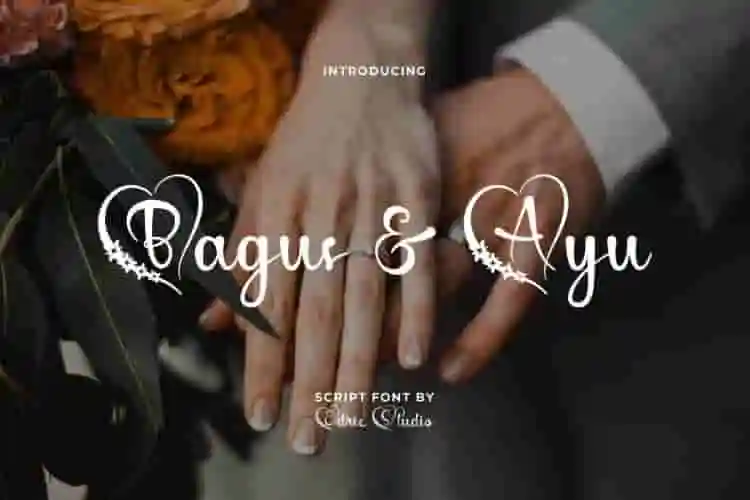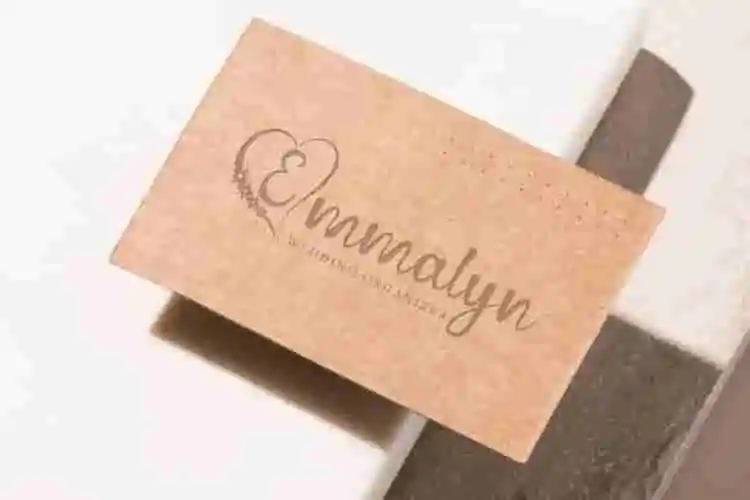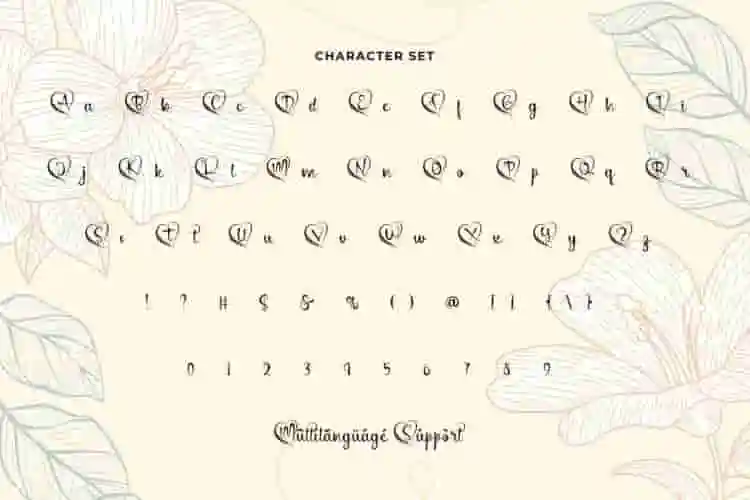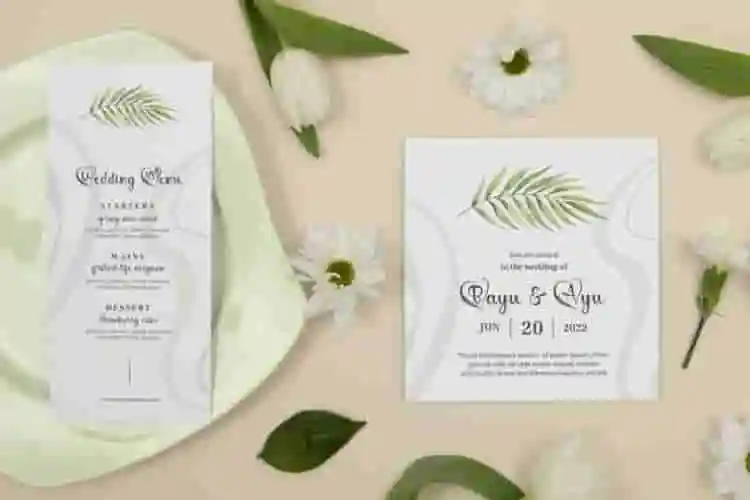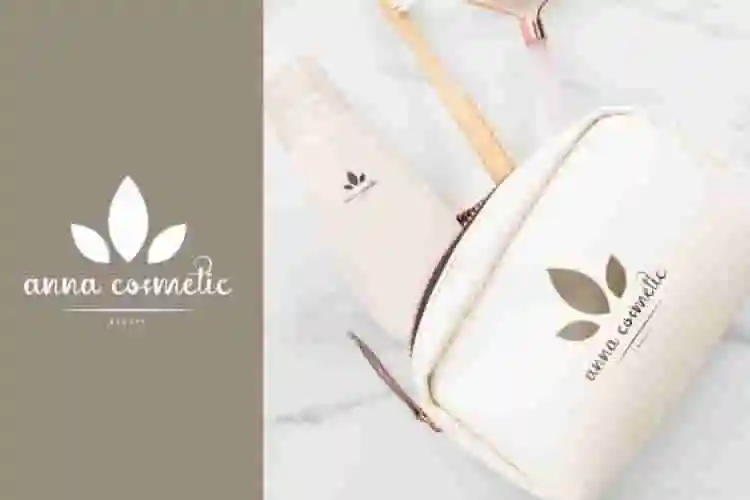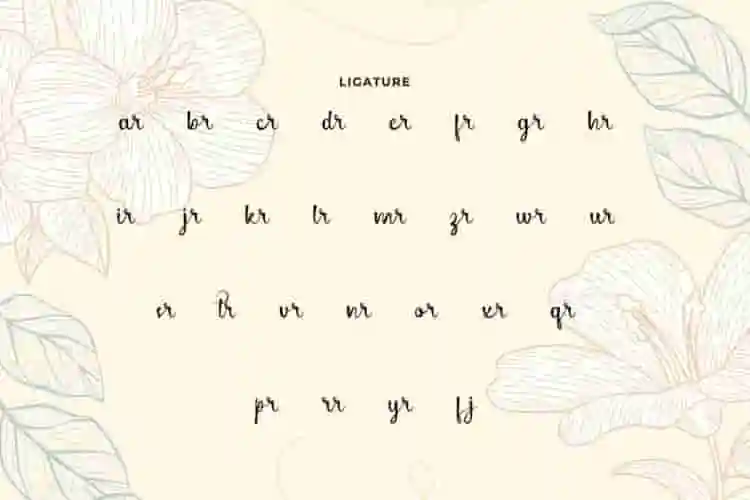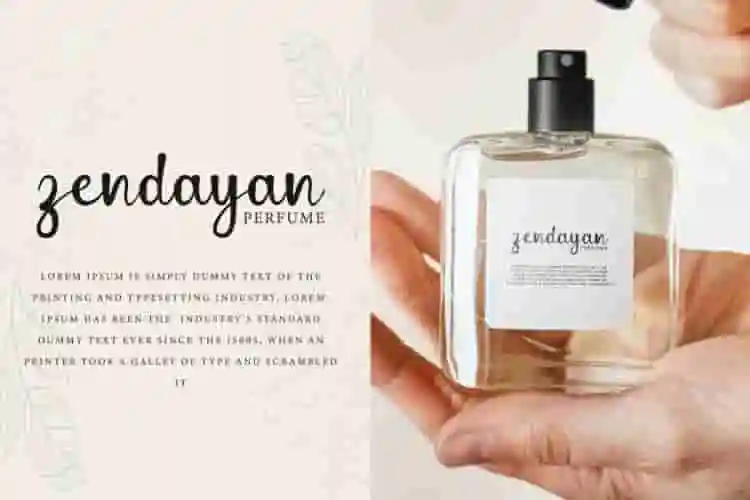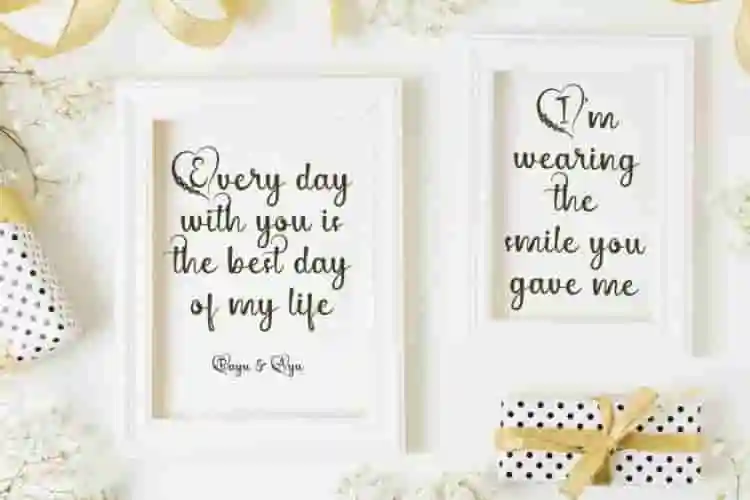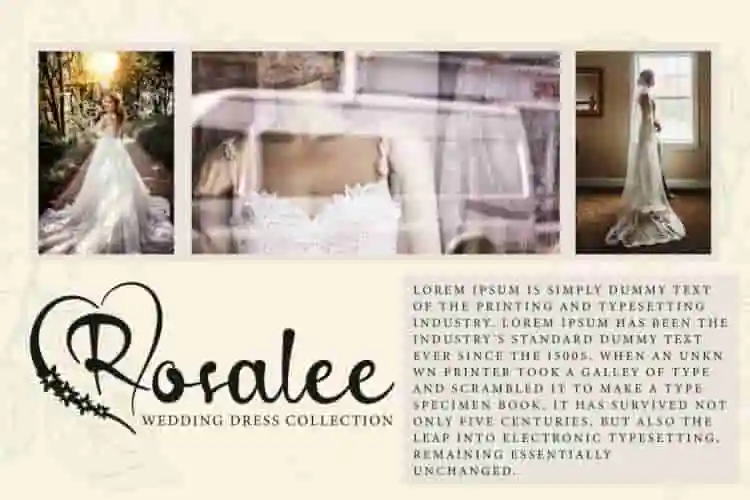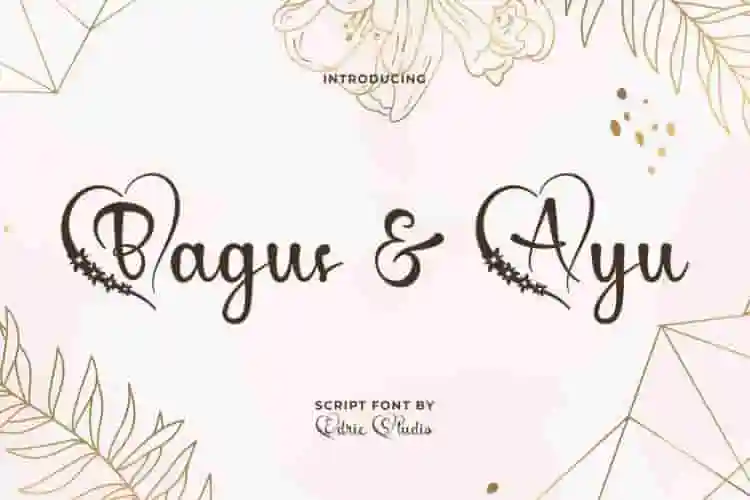
Bagus & Ayu Font is a beautiful script font with a touch of love created by EdricStudio. This font was created by raising the concept of heart in uppercase characters and is still easy to read making it suitable for any industry, such as boutique, cosmetic, event organizer, perfume brand, printing, publishing, restaurant, spa, and anything that requires an elegant script look.
Bagus & Ayu Font comes with a full set of Uppercase and Lowercase Basic Characters, Number, a large range of Punctuation and Symbol. It has a stunning characters set, perfectly managed with well spaced and kerning. Bagus & Ayu Font will be great for any projects (with extended license) including : brochure, business card, catalog, invitation, label, menu sheet, quotes, sticker, watermark, etc.
Introducing Bagus & Ayu, a sweet and beautifully flowing script font that blends elegance with a modern twist. Inspired by romance, harmony, and handwritten beauty, this font is the perfect choice for anyone looking to add charm and grace to their designs.
Whether you’re working on wedding invitations, logos, social media graphics, or product packaging, Bagus & Ayu Script Font delivers a personal, soft, and stylish feel. Each letter dances across the page with smooth strokes and romantic energy.
This unique script font captures the warmth of authentic handwriting with carefully crafted curves and clean lines. Its balance of playfulness and sophistication makes it ideal for feminine branding, lifestyle projects, or any design that needs a personal touch.
- Uppercase & lowercase letters
- Lovely ligatures & stylistic alternates
Bagus & Ayu Font also has ligature character options that you can choose and use to make it perfectly bound and stand out. Ready to use both on Windows machine or Mac with simple installations with multilingual characters supported. It’s tested to work well in the Adobe Apps (Illustrator, Adobe InDesign, Adobe Photoshop) even work on Microsoft Word. PUA Encode Characters means you can access all characters easily – Fully accessible without additional design software.